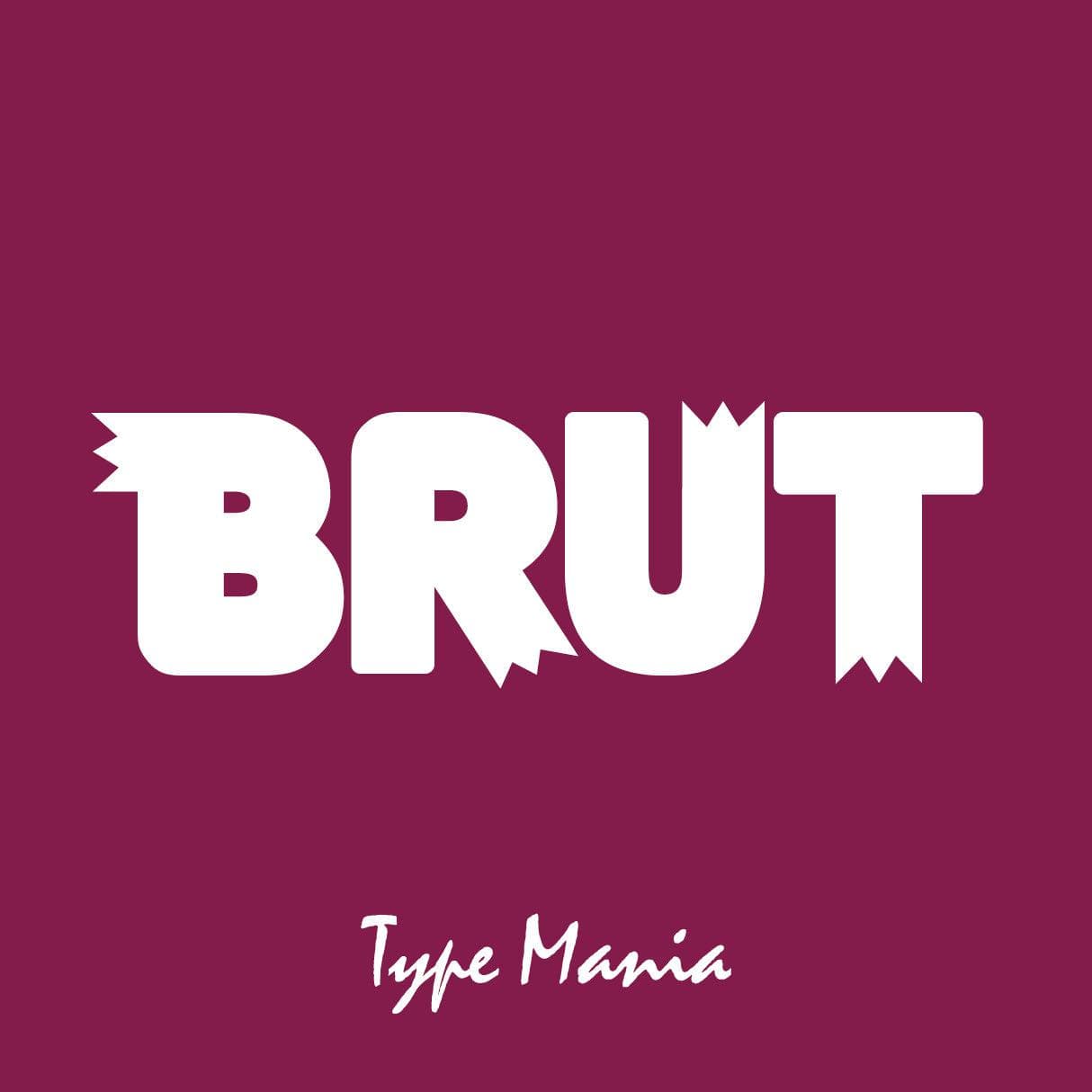
<p>Elevate your design game with <strong>Brut TM</strong> – the cozy and cute typeface inspired by the Japanese interior magazines. Whether you're crafting an editorial, poster, or digital content, <strong>Brut TM</strong> adds a touch of whimsy to every project. Arigato (<em>ᴗ͈ˬᴗ͈)ꕤ</em>.゚🇯🇵</p> <p><strong>Zip includes</strong></p> <ul> <li>OTF file</li> <li>TTF file</li> <li>WOFF2 file</li> </ul> <p><em>Graphic Design is Easy (with Type Mania)®</em></p>